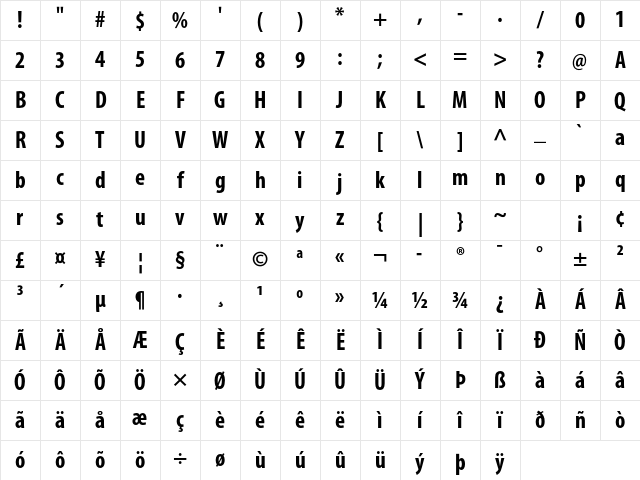
Myriad Pro Bold Condensed
Style: Bold Condensed
Designer: Robert Slimbach and Carol Twombly
Complete Myriad Pro Bold Condensed glyph index. Displaying only characters natively supported by Myriad Pro Bold Condensed font.
Design Context for Myriad Pro
Myriad Pro is a composed and adaptable typeface that performs quietly and consistently across a wide range of design contexts. Its bold stroke weight gives it real presence on the page. Its narrow stance lets it pack a punch even in space-constrained designs.